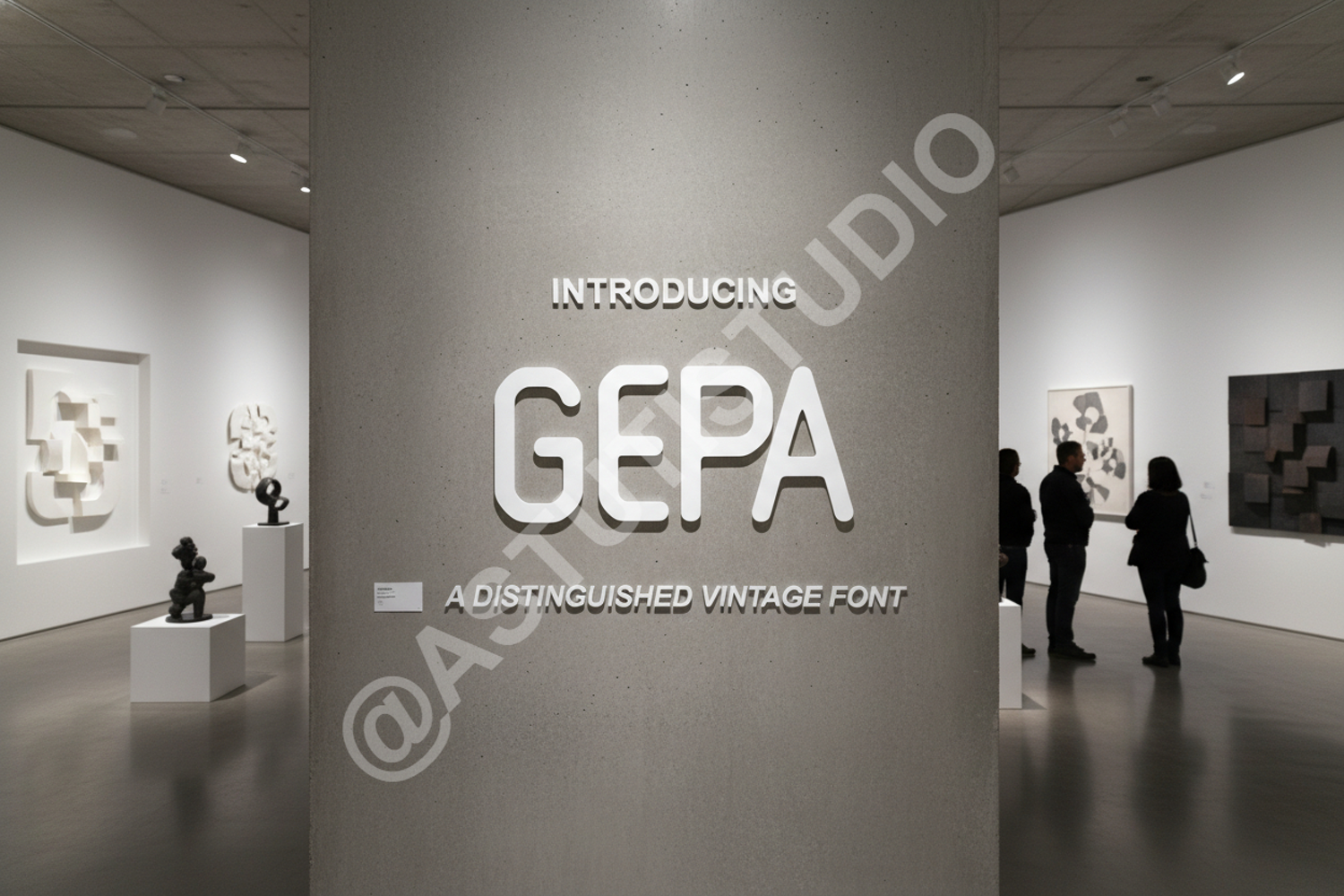
Gepo - Modern Geometric Sans Serif Typeface
Gepo
Gepa
Experience the perfect blend of precision and style with Gepo. This premium geometric sans serif is crafted for designers who demand clarity and a contemporary edge. Whether you are building a high-end brand or designing a minimalist interface, Gepo provides the versatility and professional polish needed to make your project stand out in a crowded market.
- Clean and precise kerning for professional results